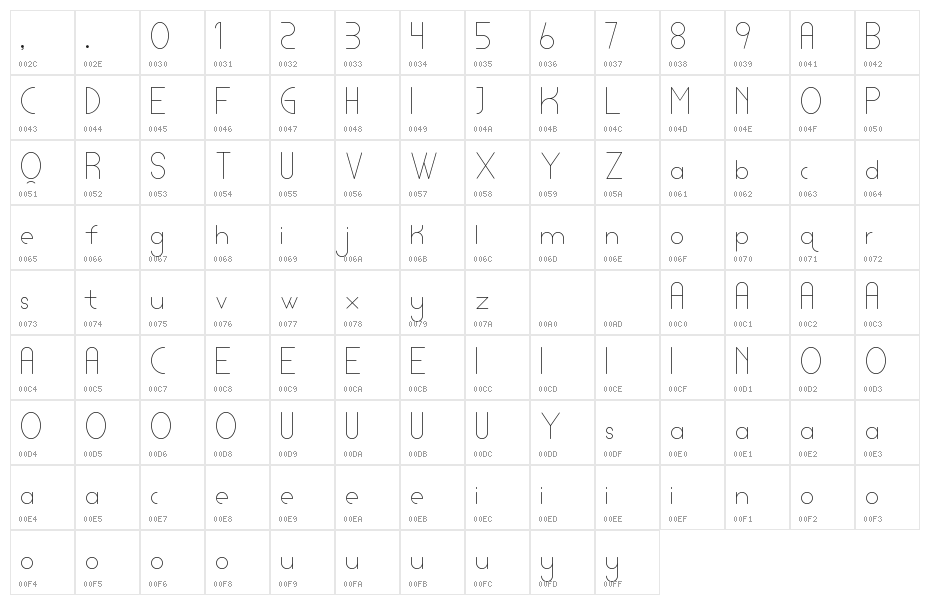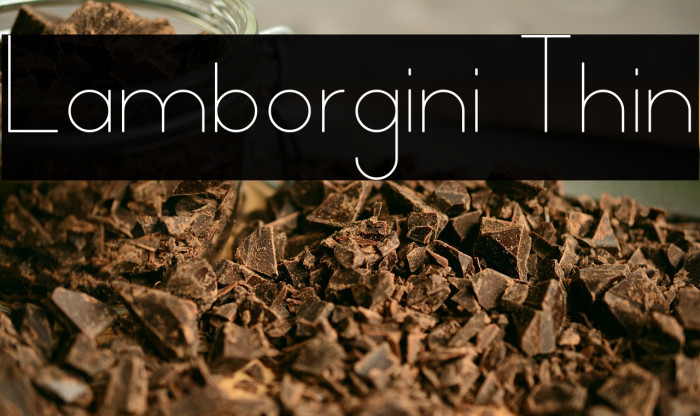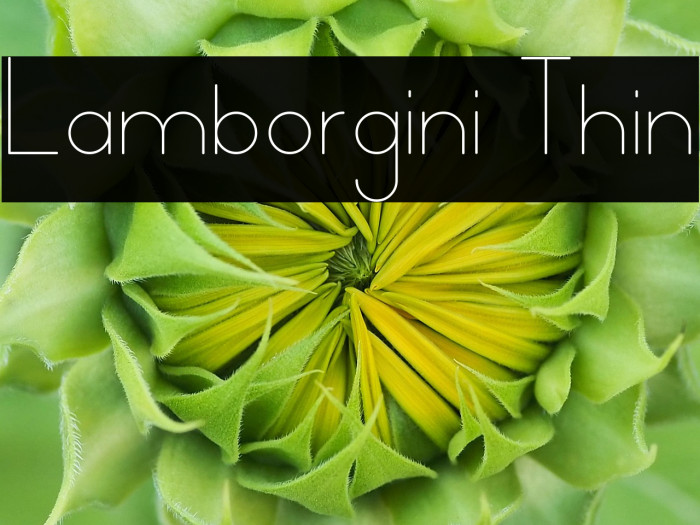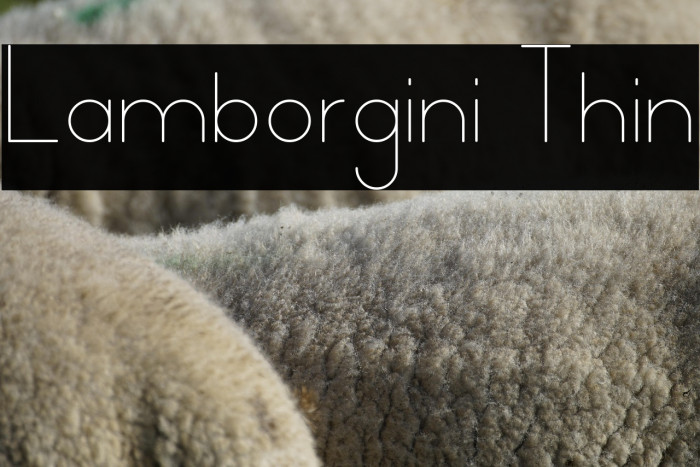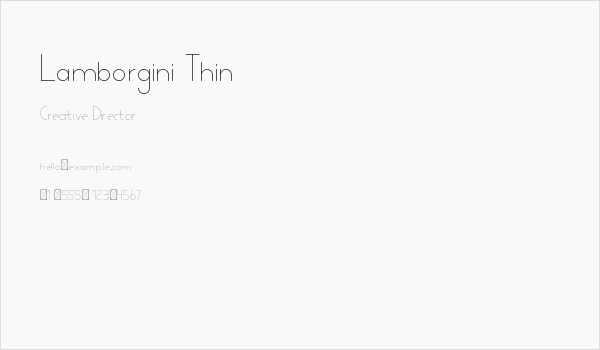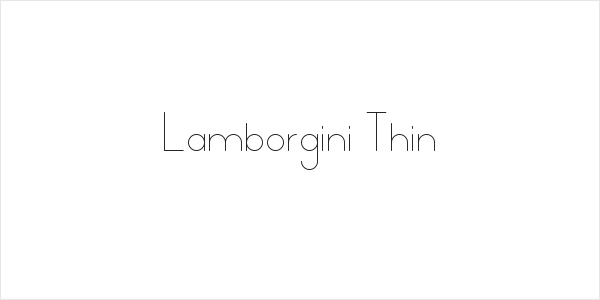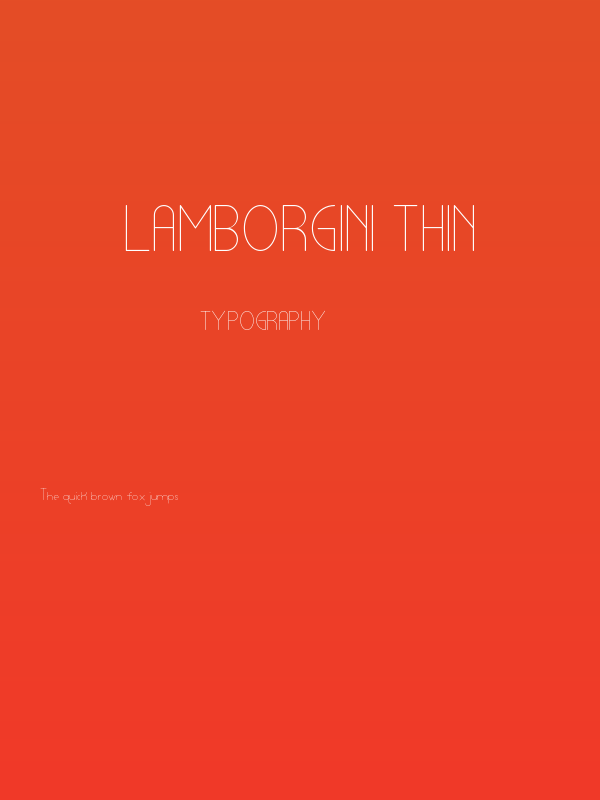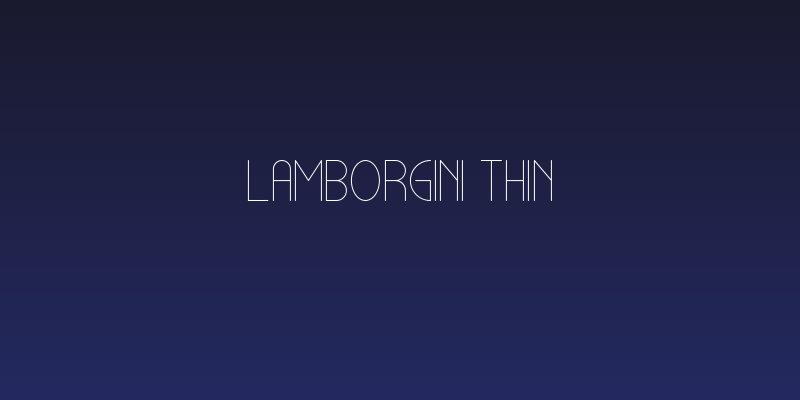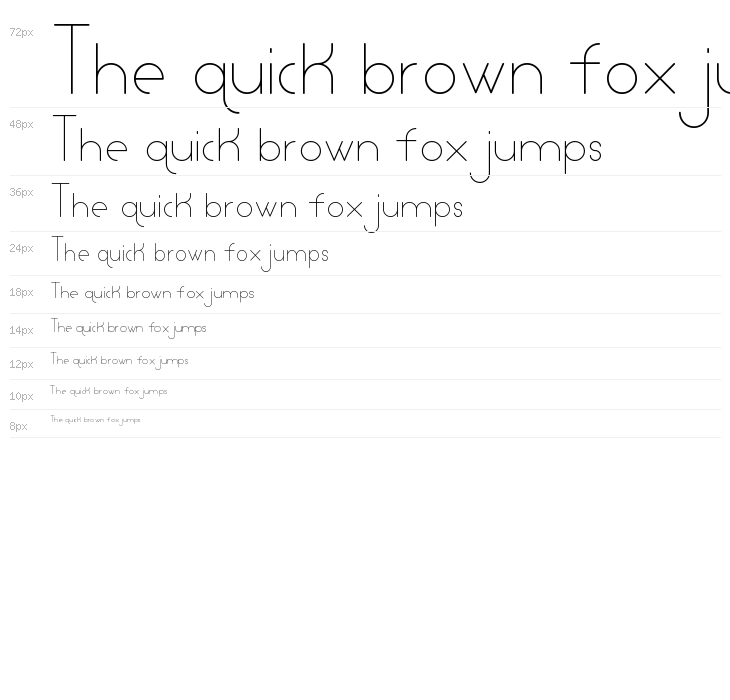
Lamborgini Thin Font
Lamborgini Thin Description
This font exhibits a sleek and modern design with thin, elongated strokes that convey a sense of elegance and sophistication. The characters are clean and minimalistic, featuring a geometric structure that enhances readability while maintaining a stylish appearance. The uppercase letters are tall and narrow, while the lowercase letters maintain a consistent height, offering a harmonious balance. The numerals are distinct and align well with the overall aesthetic, making them suitable for various applications. The special characters are designed with the same attention to detail, ensuring they integrate seamlessly with the rest of the typeface.
Use CaseHeadlines, Logos, Branding
Proposed ProjectsIdeal for luxury branding, high-end fashion magazines, modern websites, and minimalist design projects.